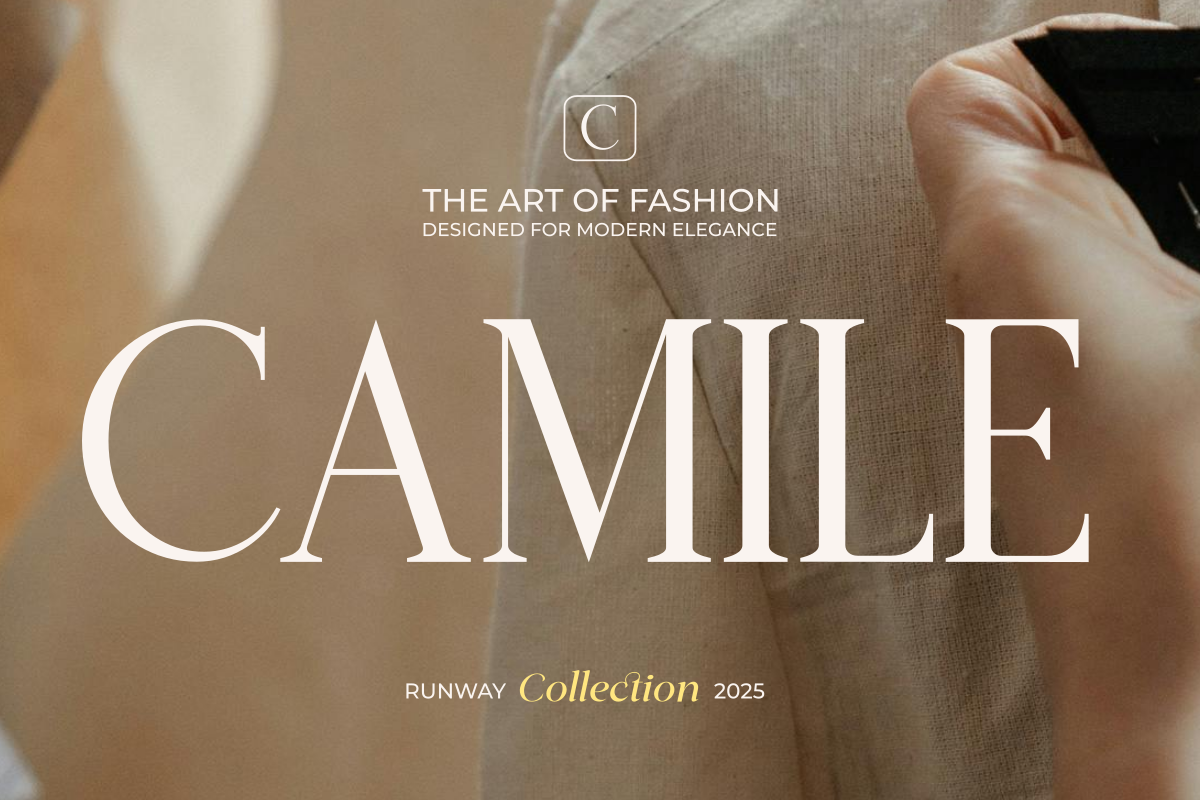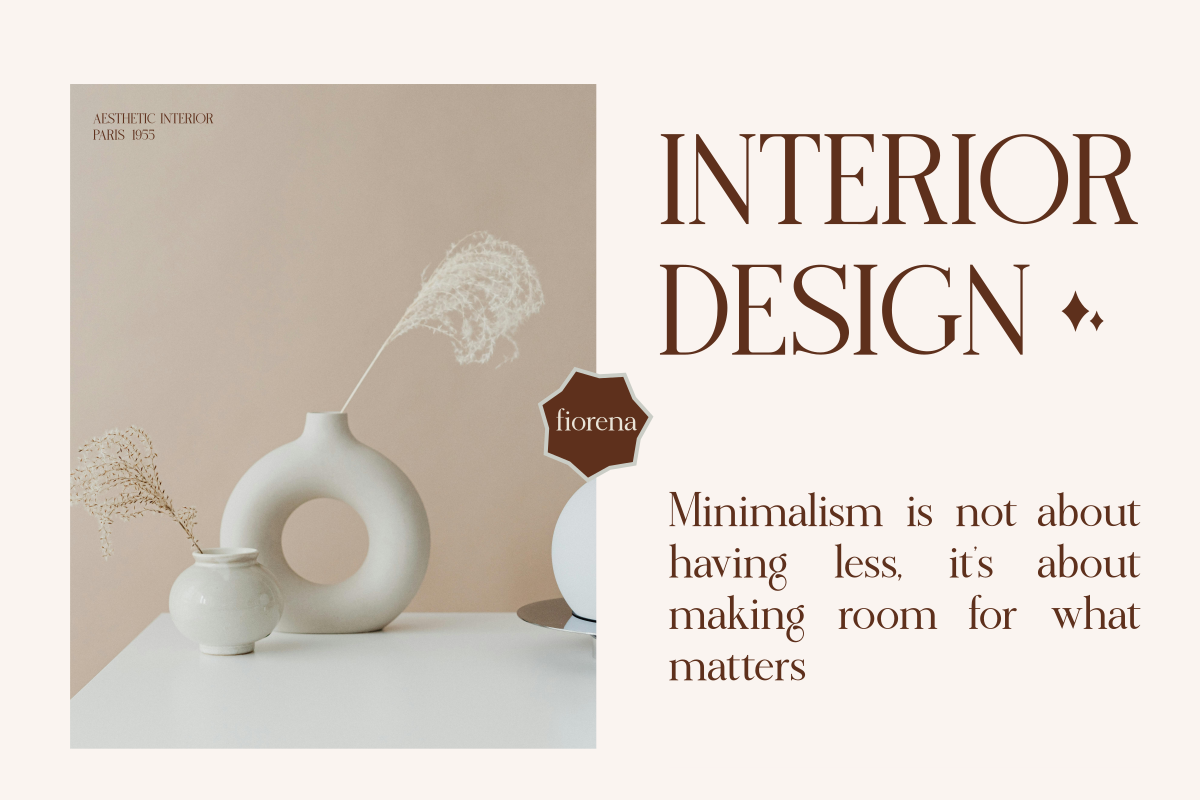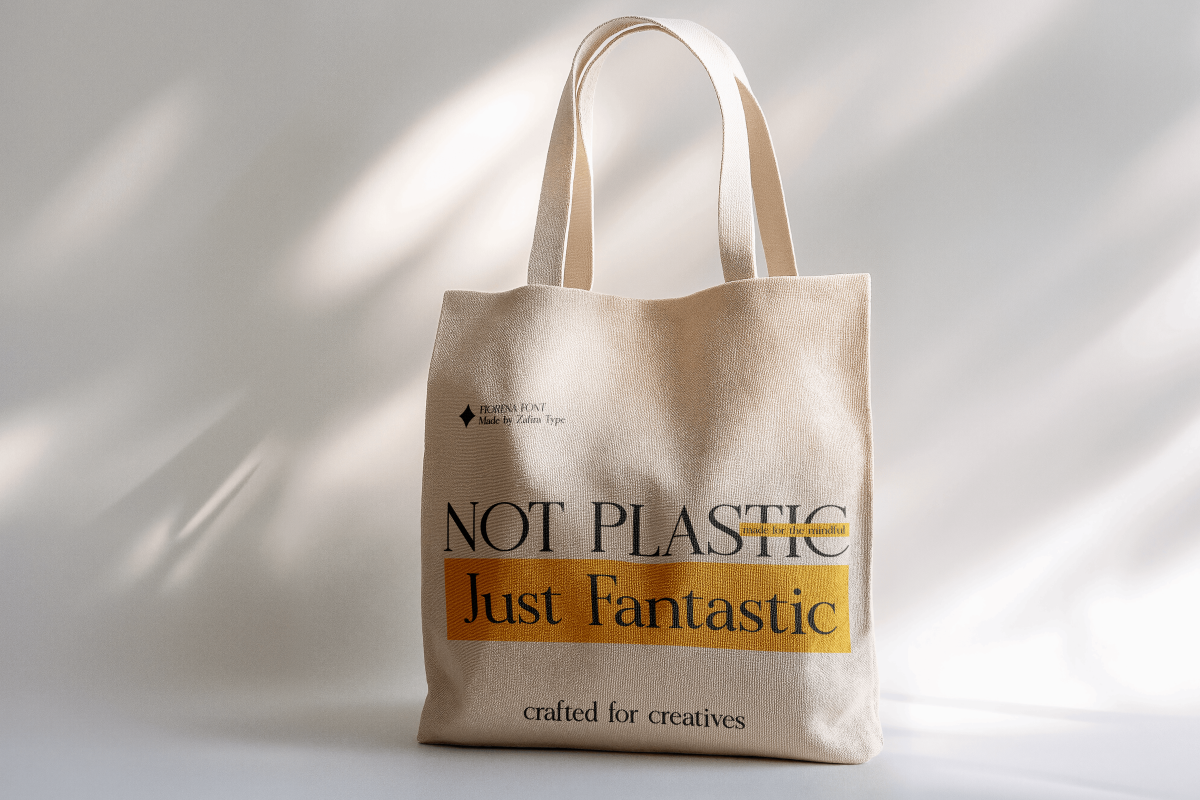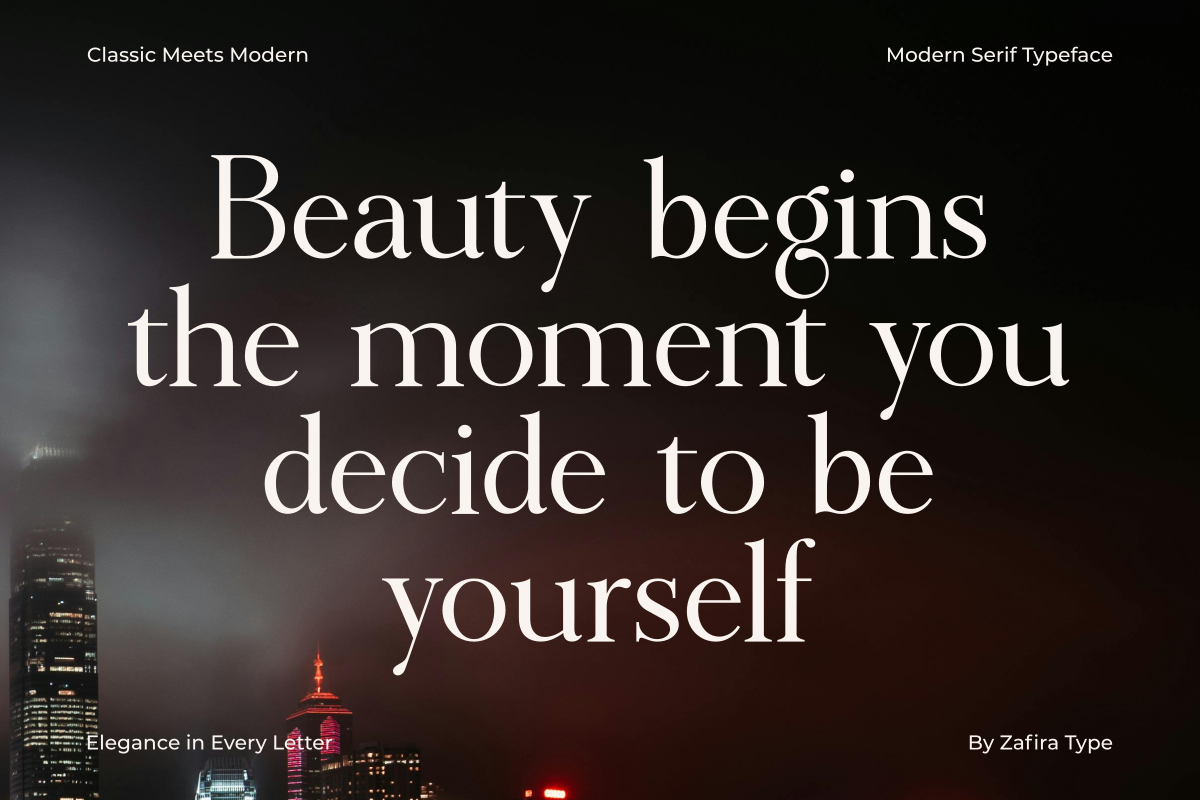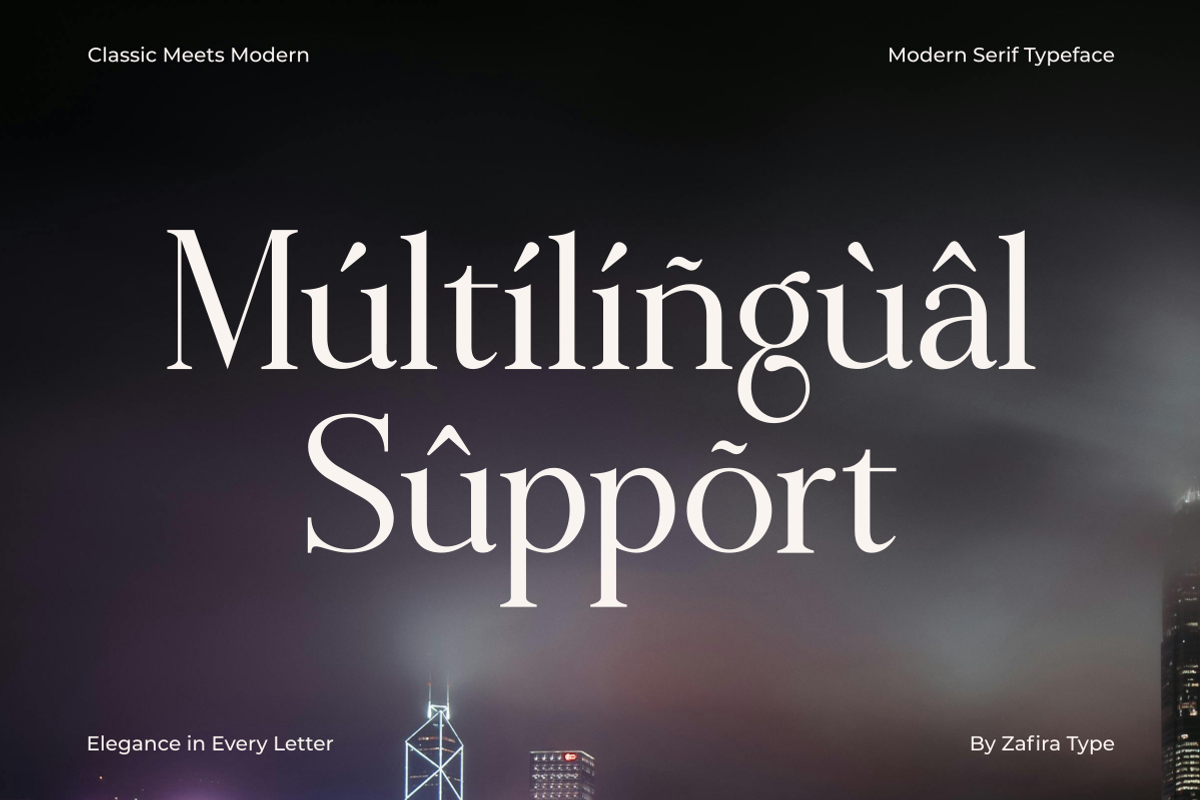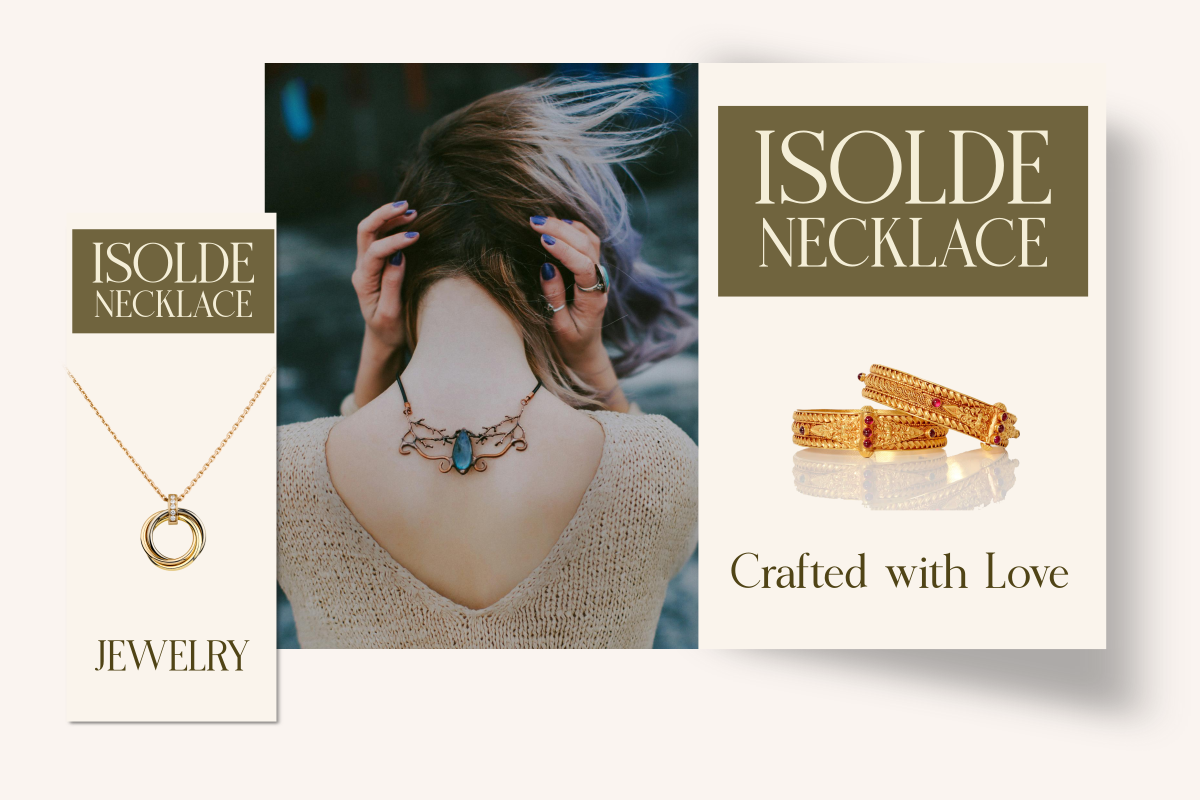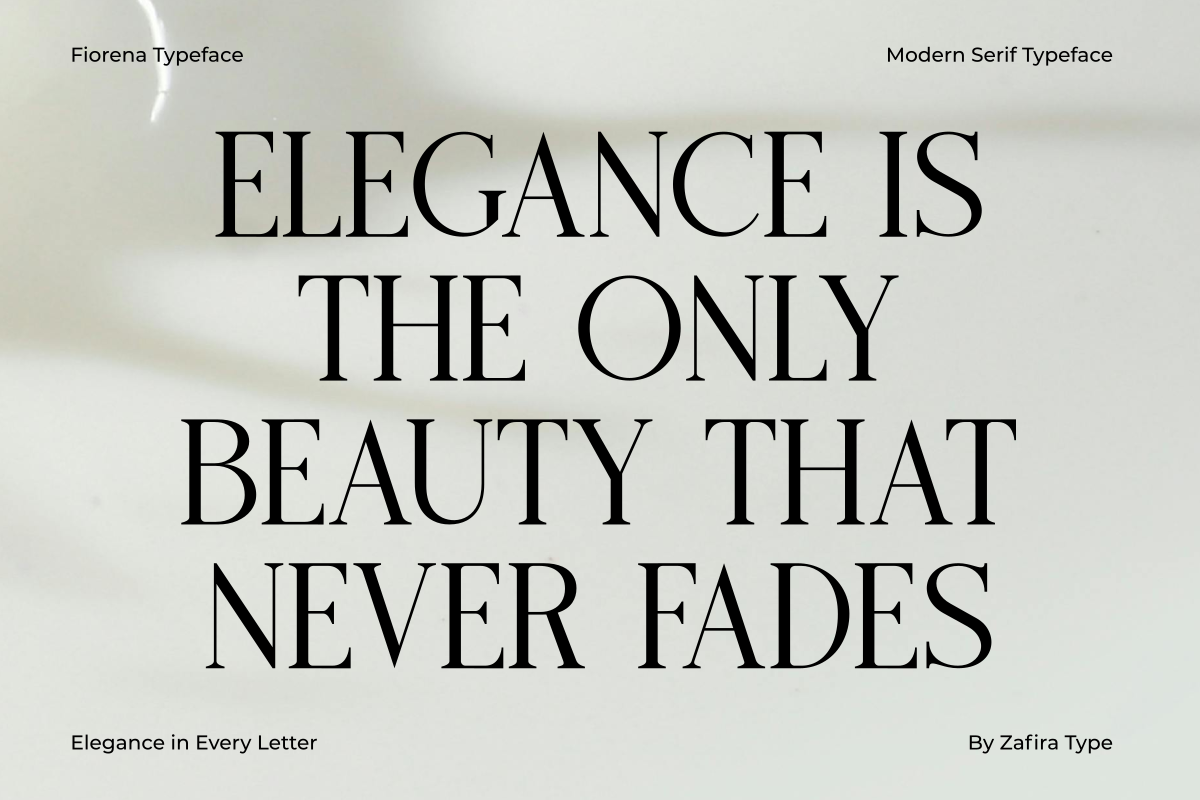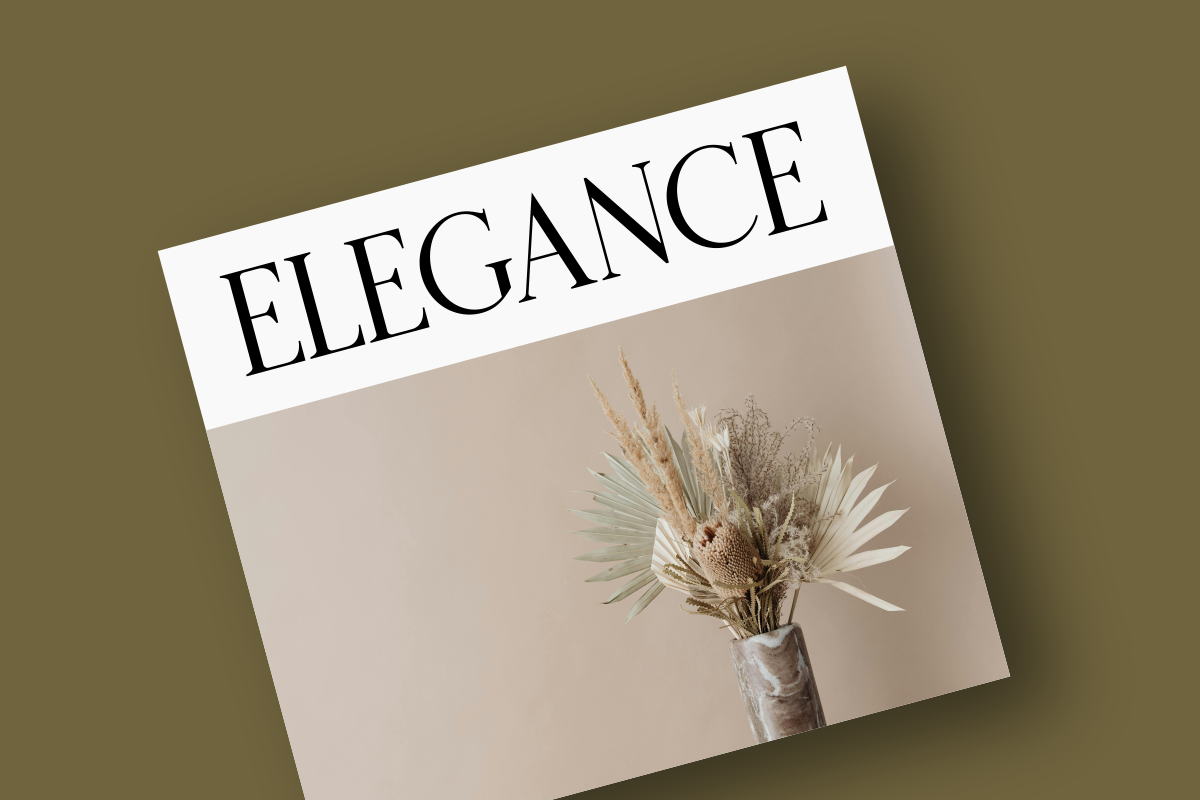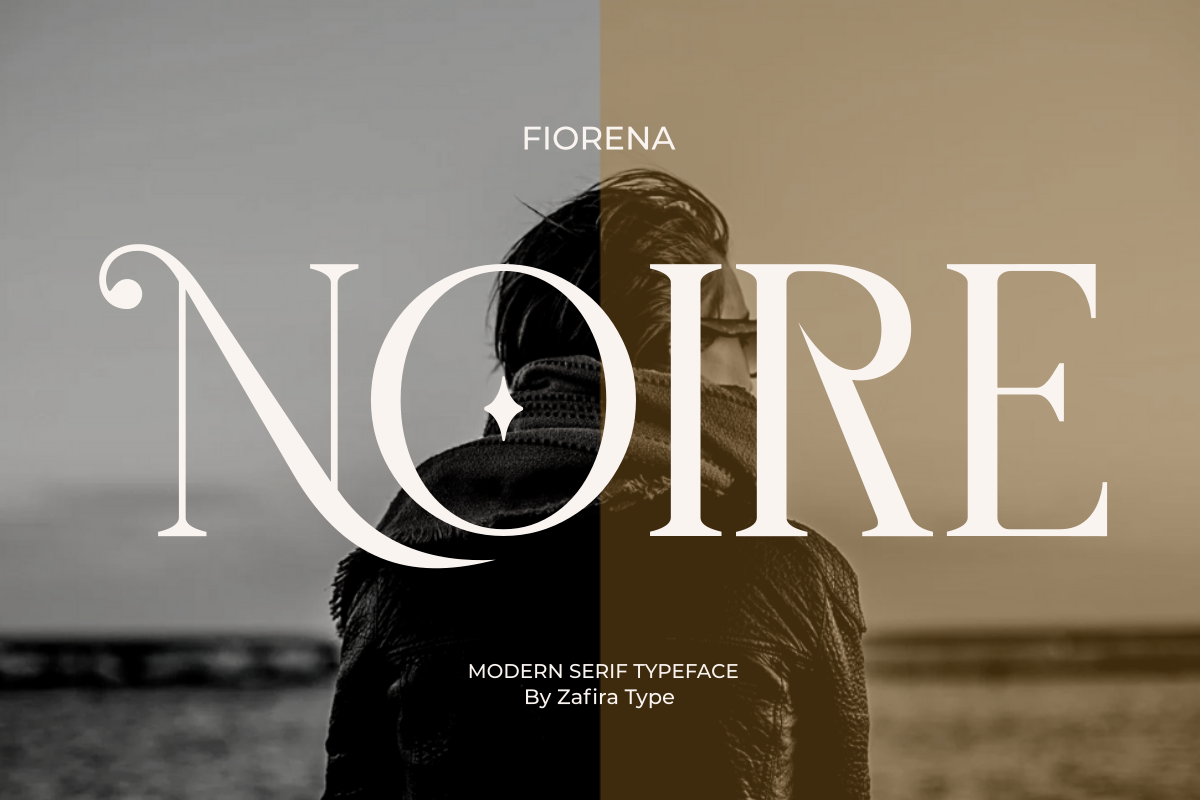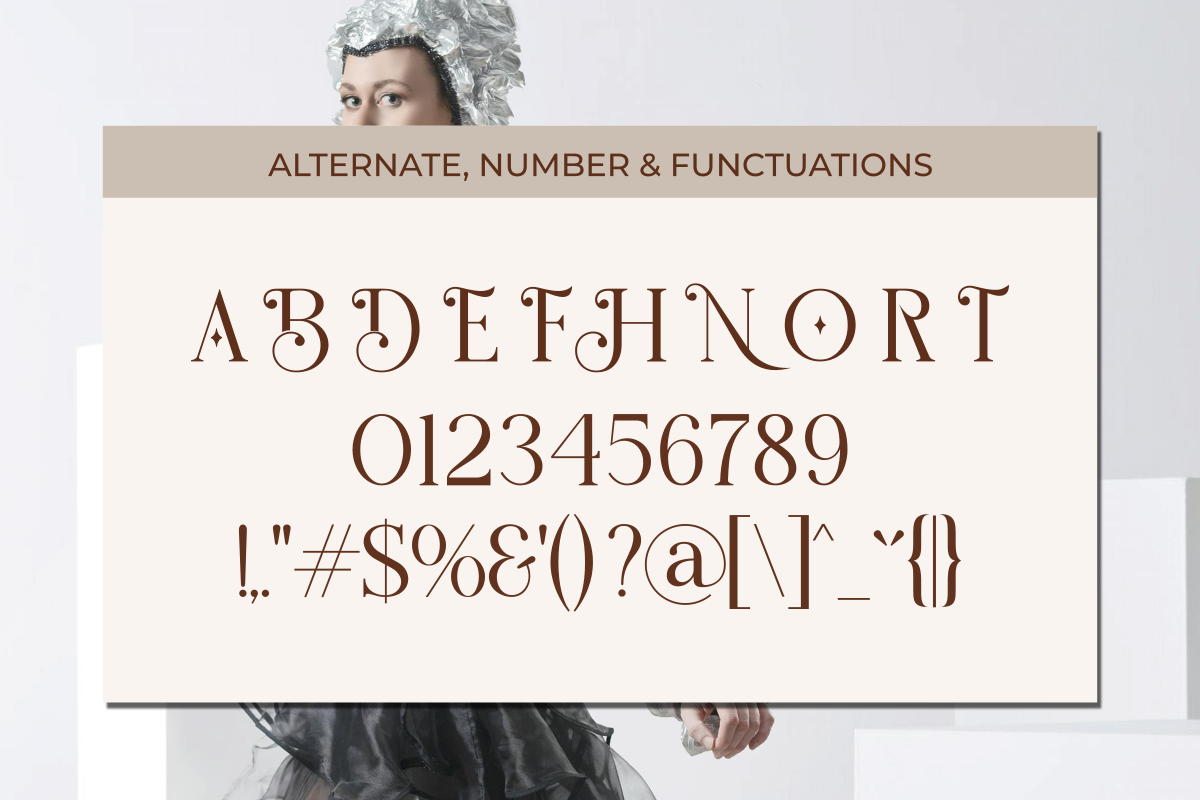
Fiorena
Fiorena is a serif display font that blends timeless elegance with a modern touch. Each letterform is carefully crafted with balanced proportions and refined details, making it the perfect choice for projects that demand a sophisticated and luxurious look.
With its bold yet graceful personality, Fiorena works beautifully for branding, editorial headlines, logos, wedding invitations, packaging, and social media design. It delivers a striking, premium feel while remaining highly legible in large sizes.